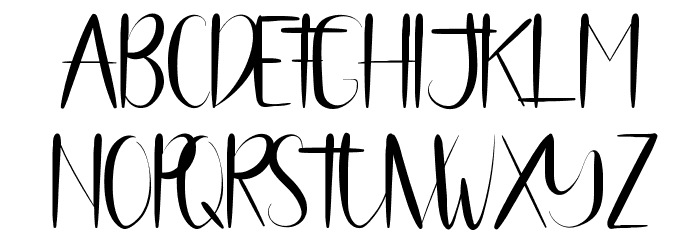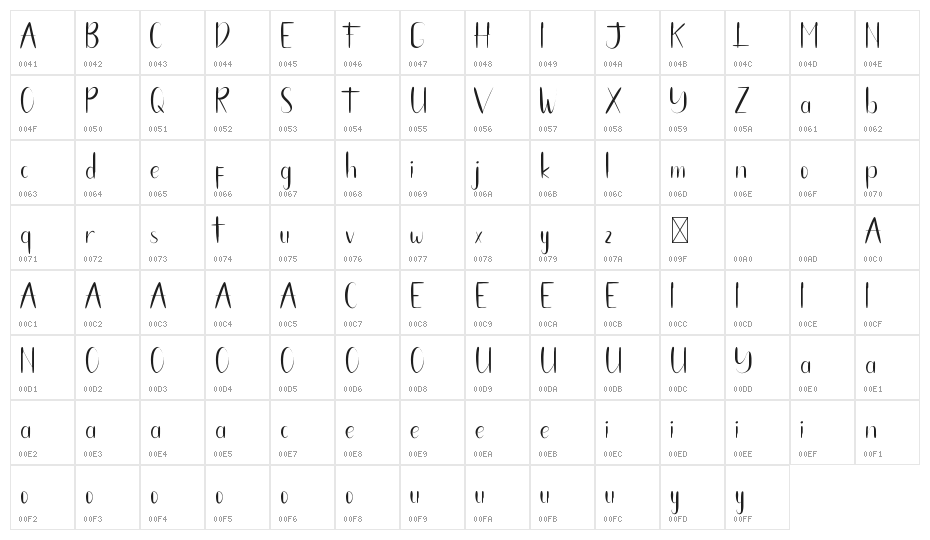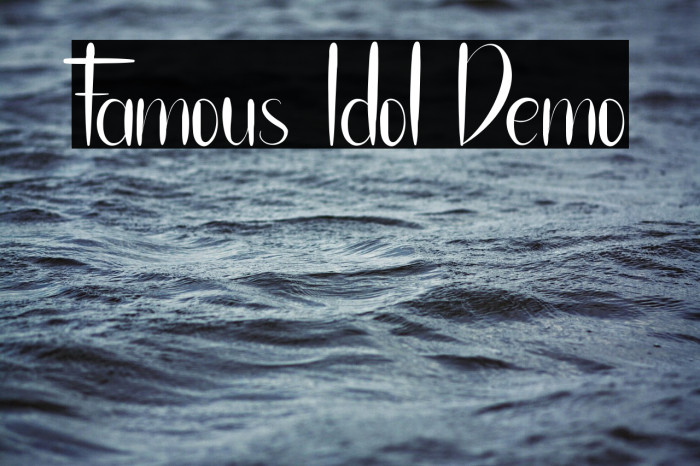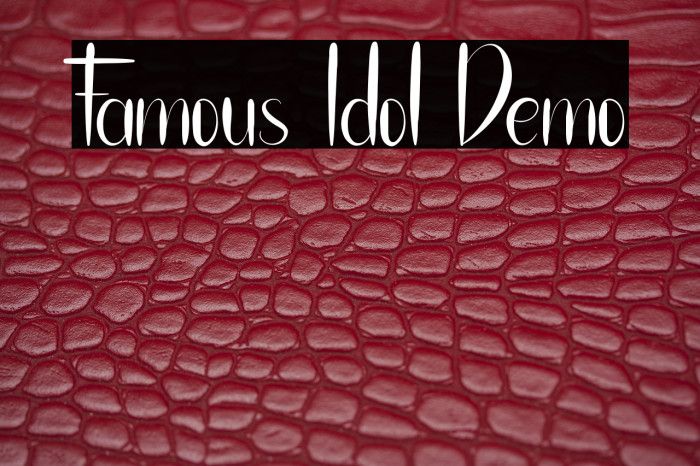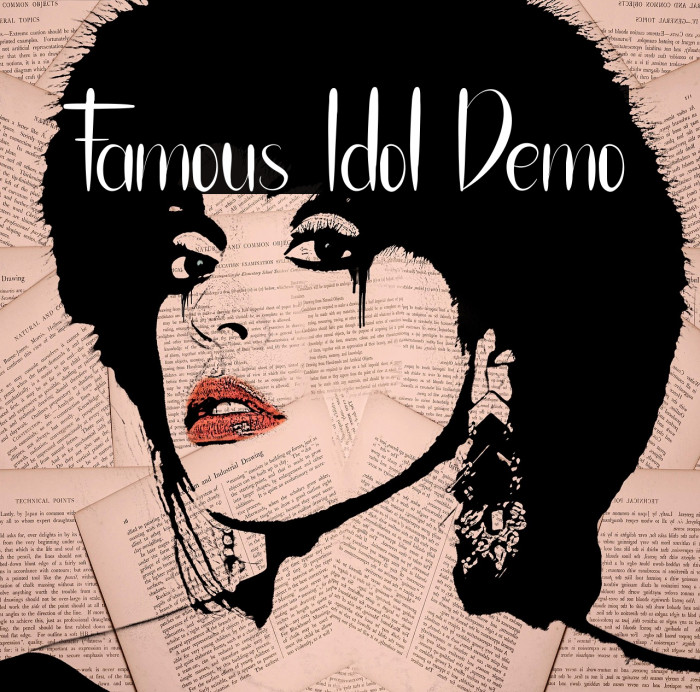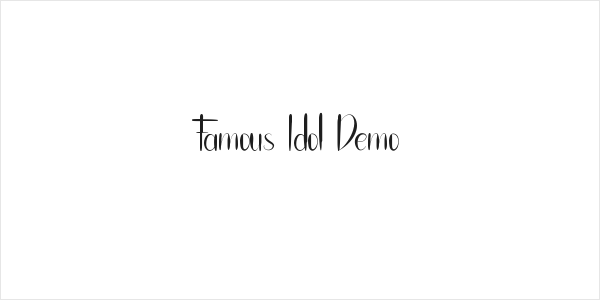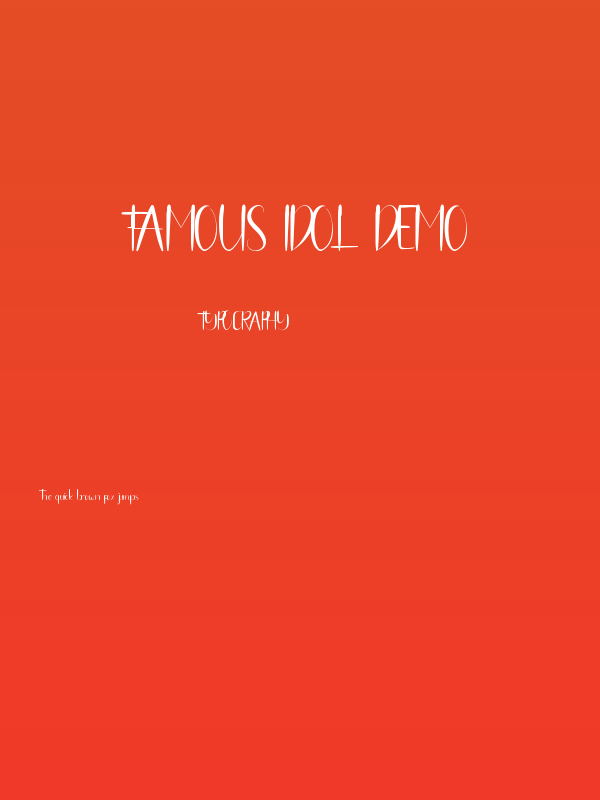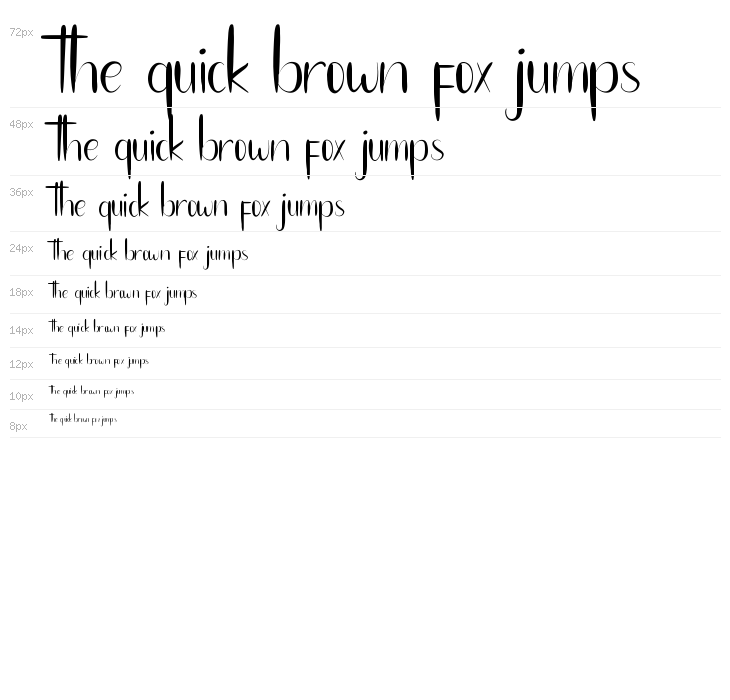
Famous Idol Demo Font
Famous Idol Demo Description
This font features a unique and artistic style with a handwritten appearance. The letters are elongated and have a flowing, cursive-like quality, giving them a dynamic and elegant look. The uppercase and lowercase letters maintain a consistent style, with some characters featuring distinctive loops and swirls. The overall design is playful yet sophisticated, making it suitable for creative and expressive projects. The font's strokes vary in thickness, adding to its charm and visual interest.
| Proposed Projects | Ideal for wedding invitations, greeting cards, branding, and artistic posters. |